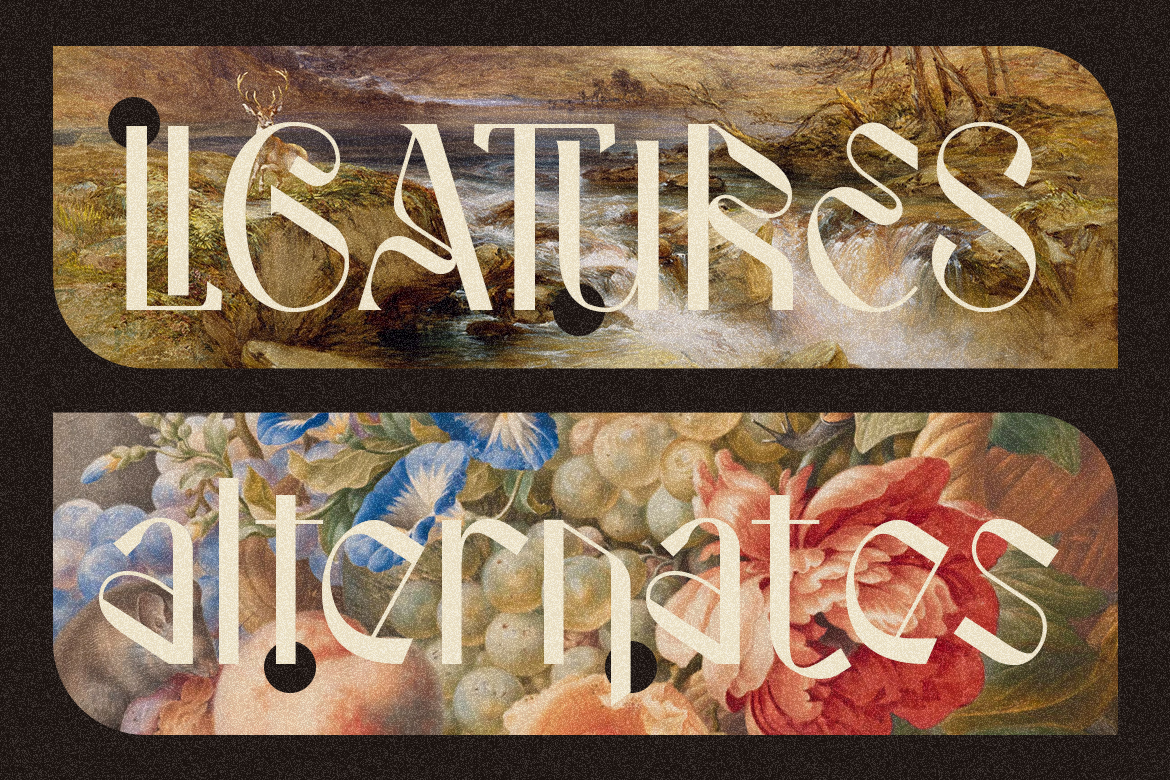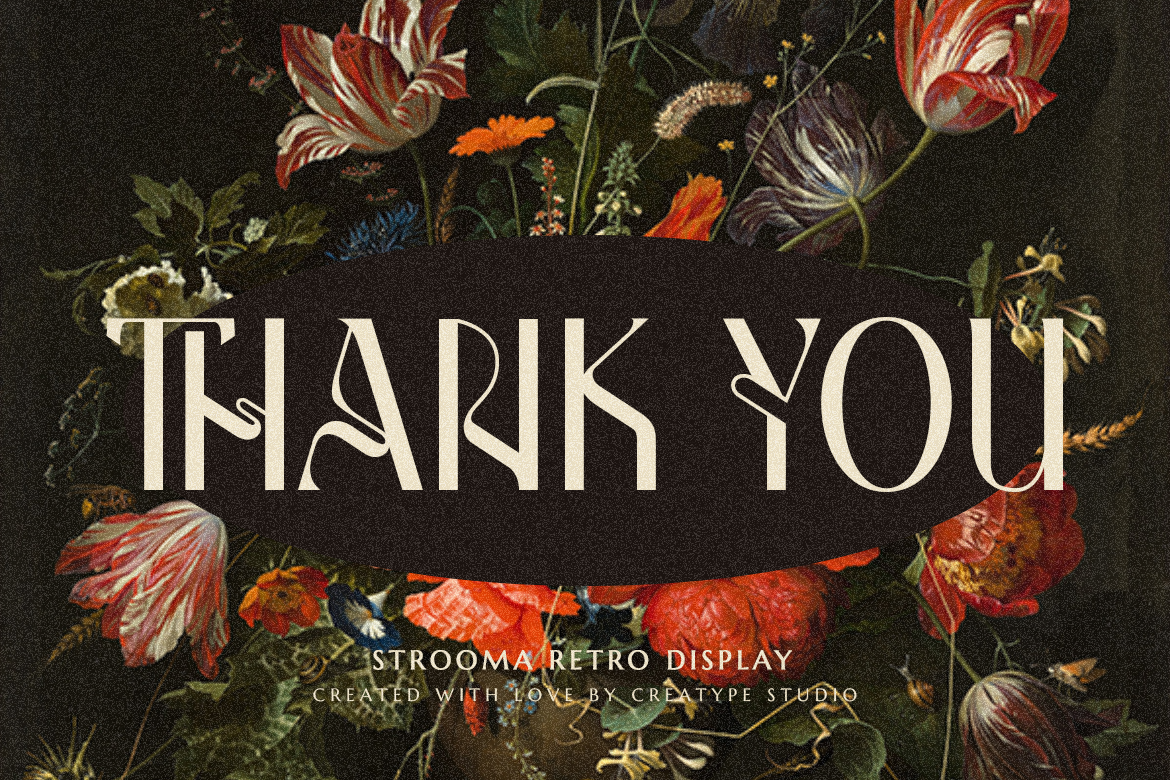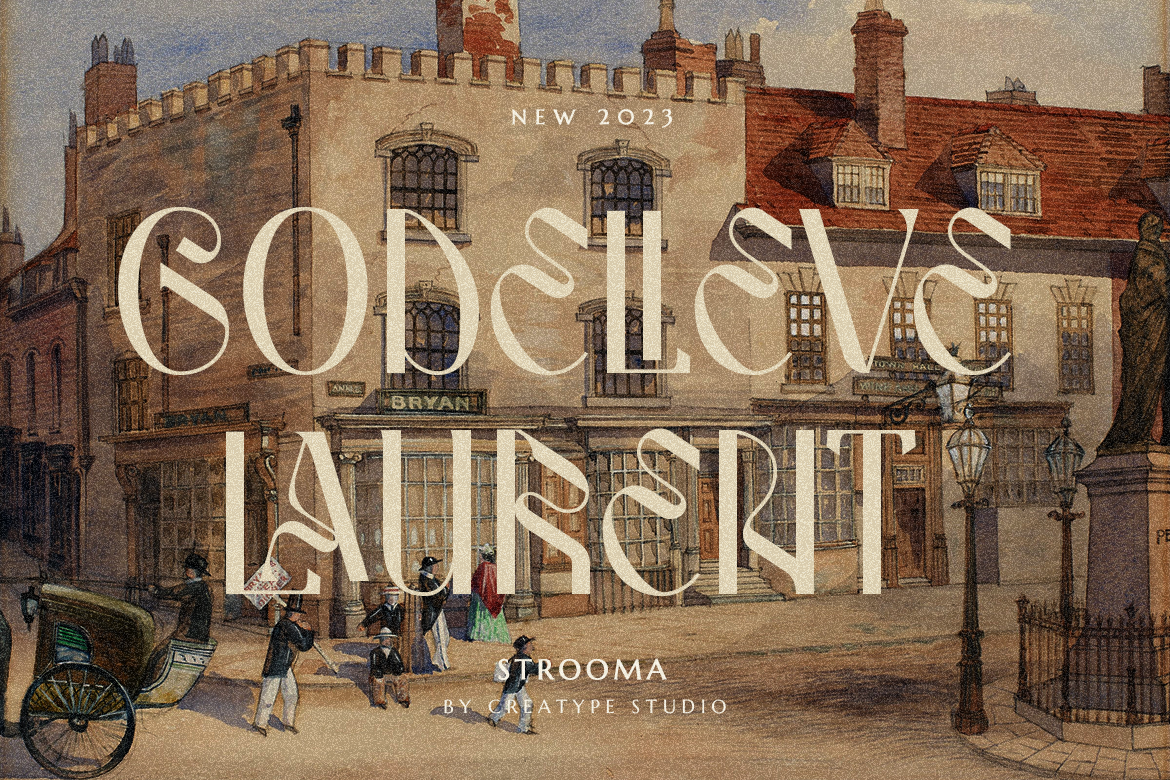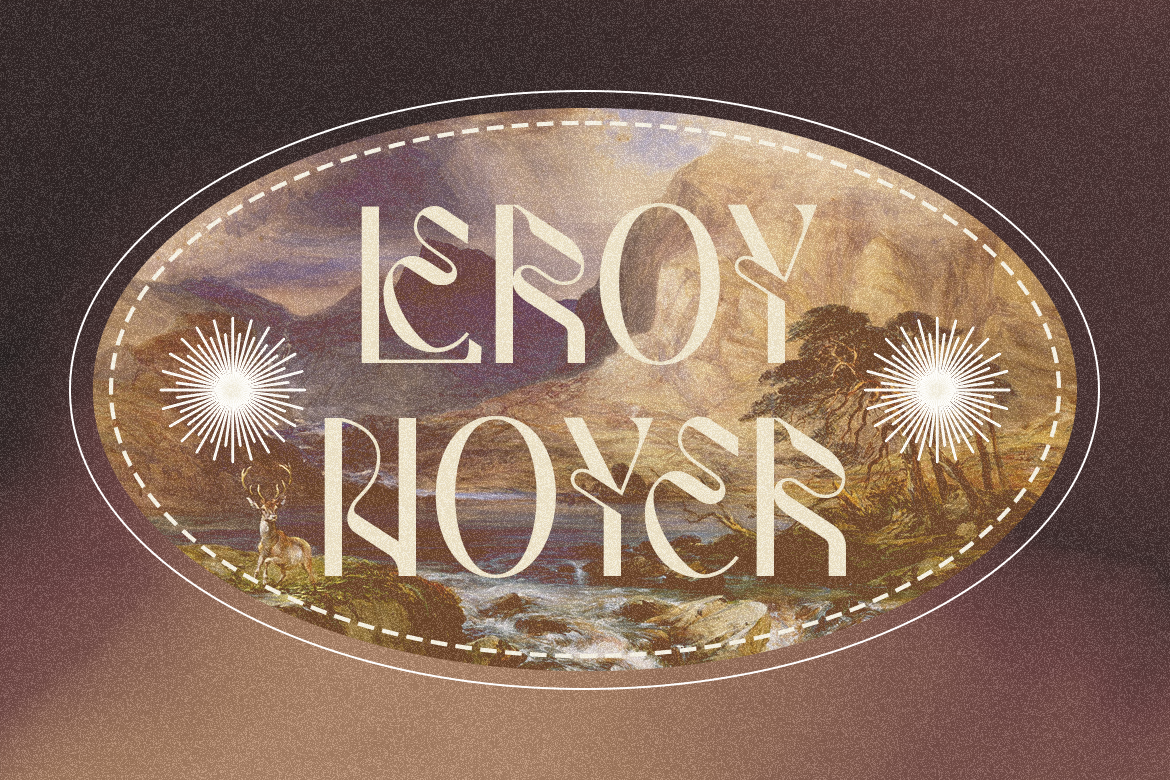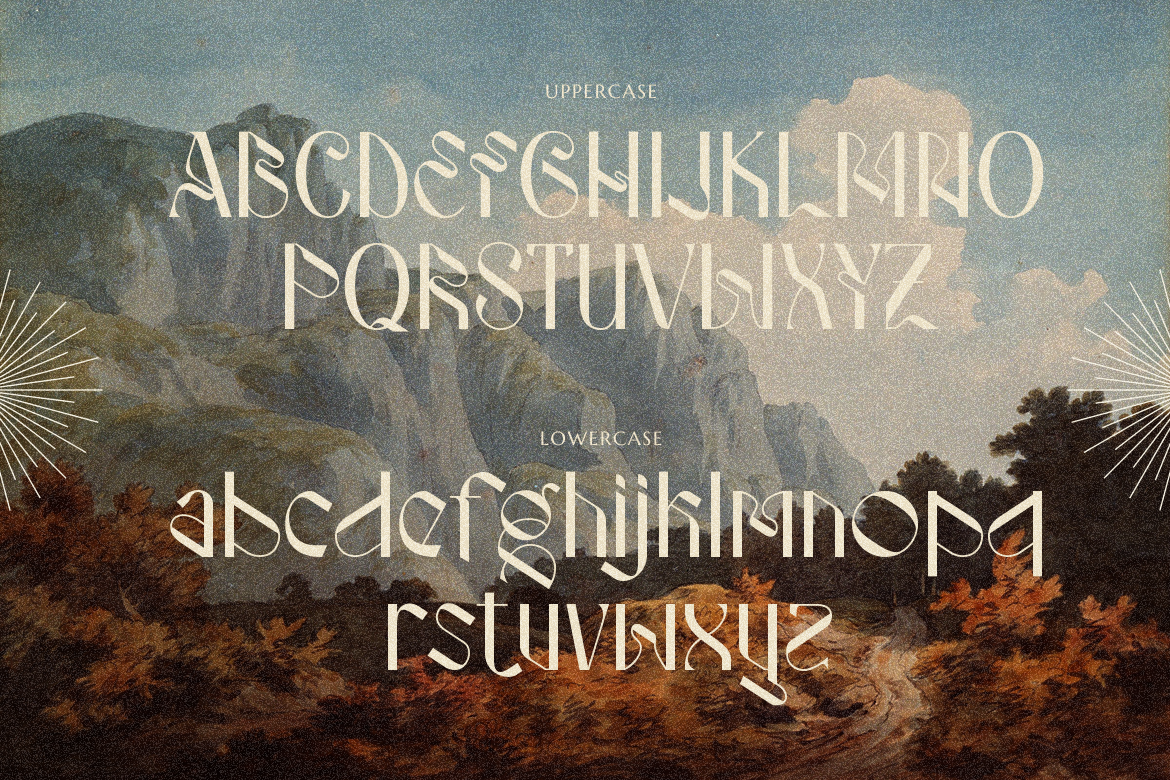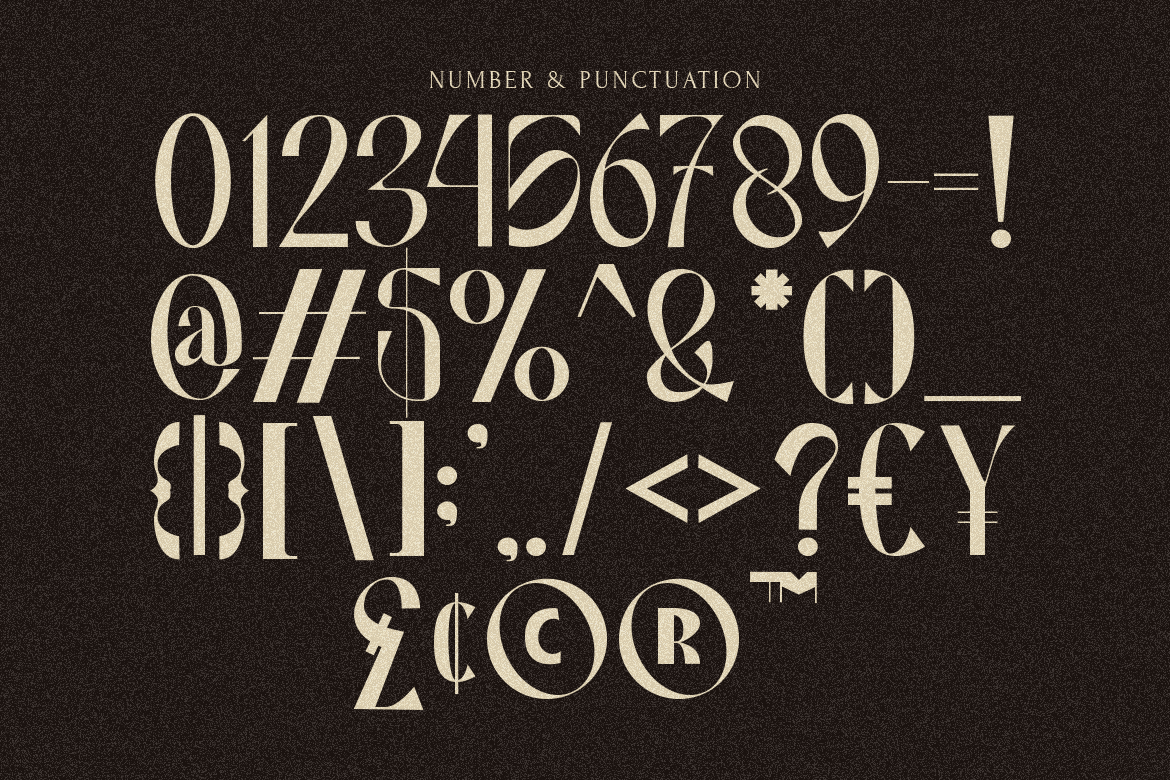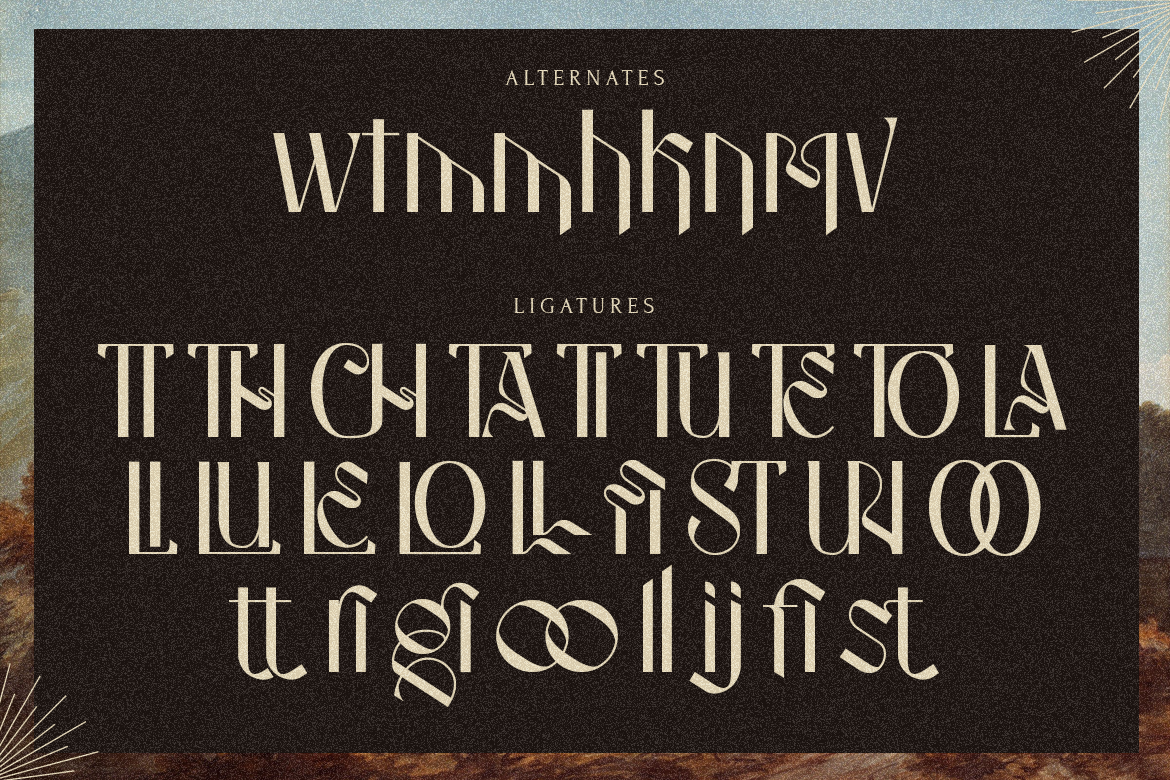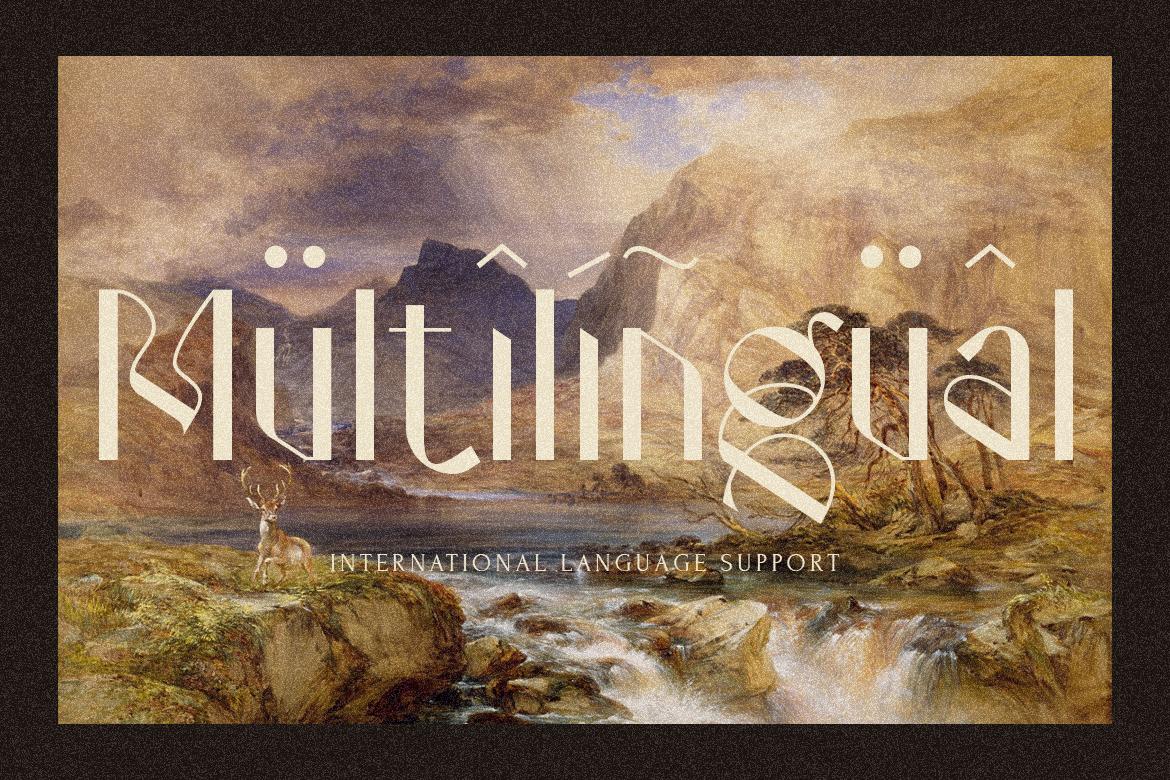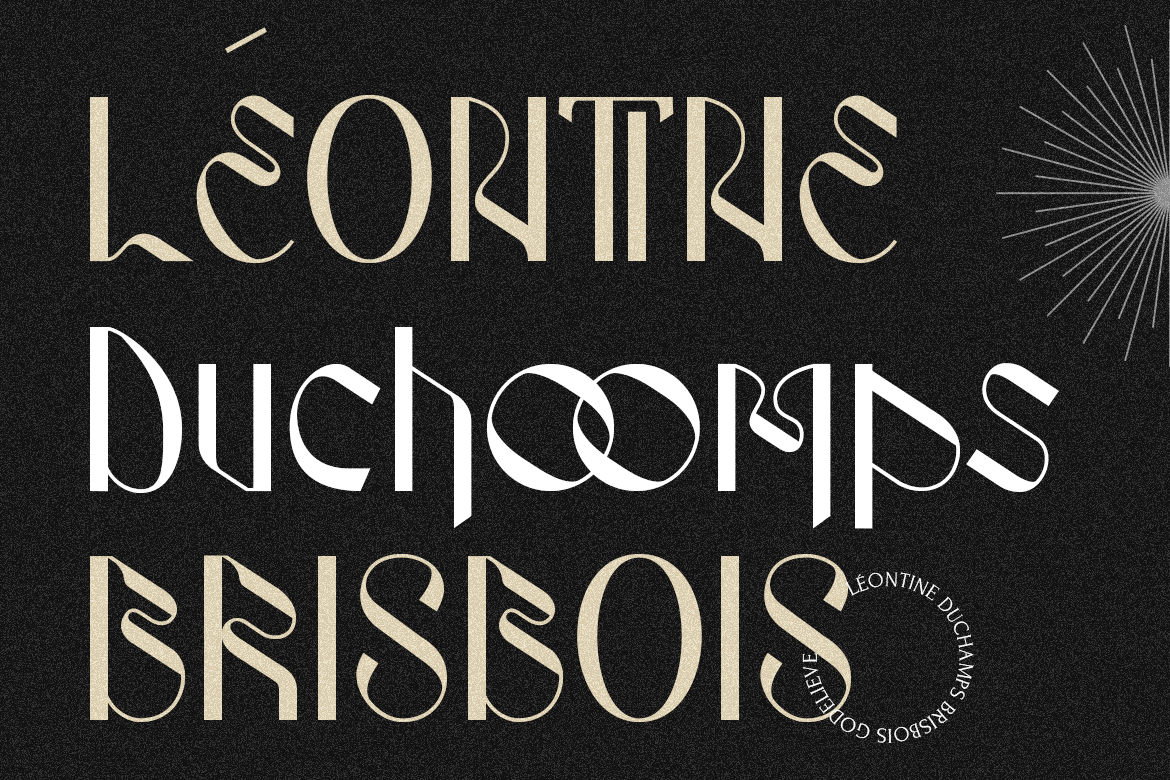
Strooma is a playful yet elegant typeface that is the perfect way to add a touch. This kind of typeface can unleash your creativity.
Strooma is perfect for branding projects, logo, wedding designs, social media posts, advertisements, product packaging, product designs, label, photography, watermark, invitation, stationery and any projects that need handwriting taste.
Strooma Retro Display Font